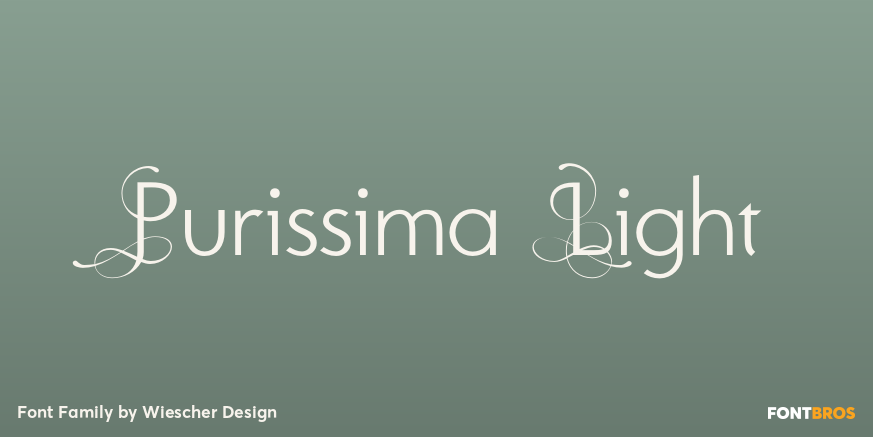
Purissima Light
About Purissima Light
Purissima Light is the decorated extension to my Pura family. I only offer all 5 cuts together but for a very advantageous price.. The Light cut has no embellishments. The A and B cuts are two fully embellished sets. The C and D cuts only have embellished…